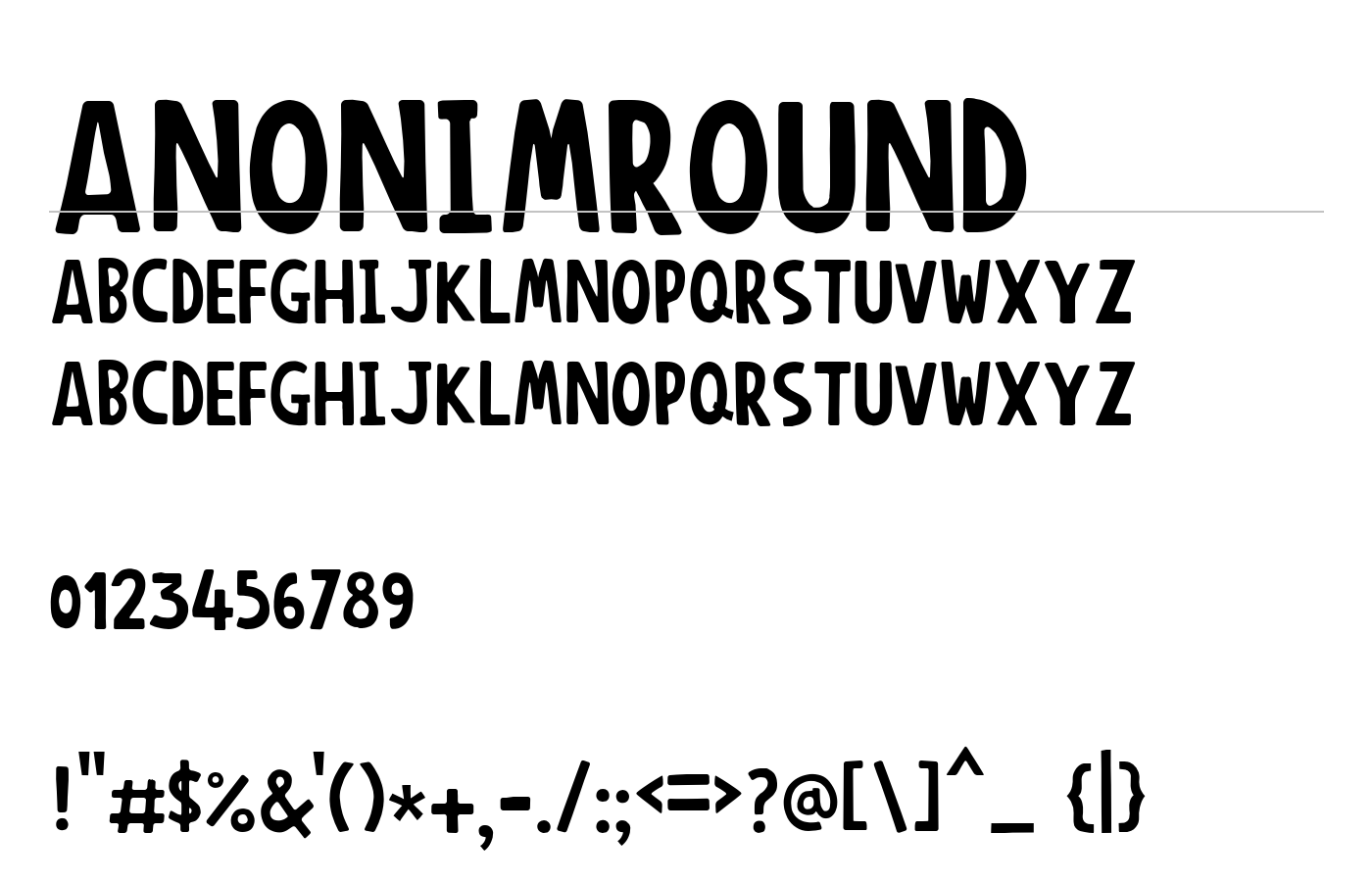
AnonimRound is a playful and friendly sans serif font characterized by its rounded, slightly irregular shapes that convey a casual, hand-drawn feel. With its moderate weight and upright stance, it offers a warm, approachable personality, making it ideal for informal branding, children's products, and creative projects needing a touch of whimsy. Its clear letterforms and simple style work well in headlines, logos, and packaging where a unique yet readable font is desired.
AnonimRound Font